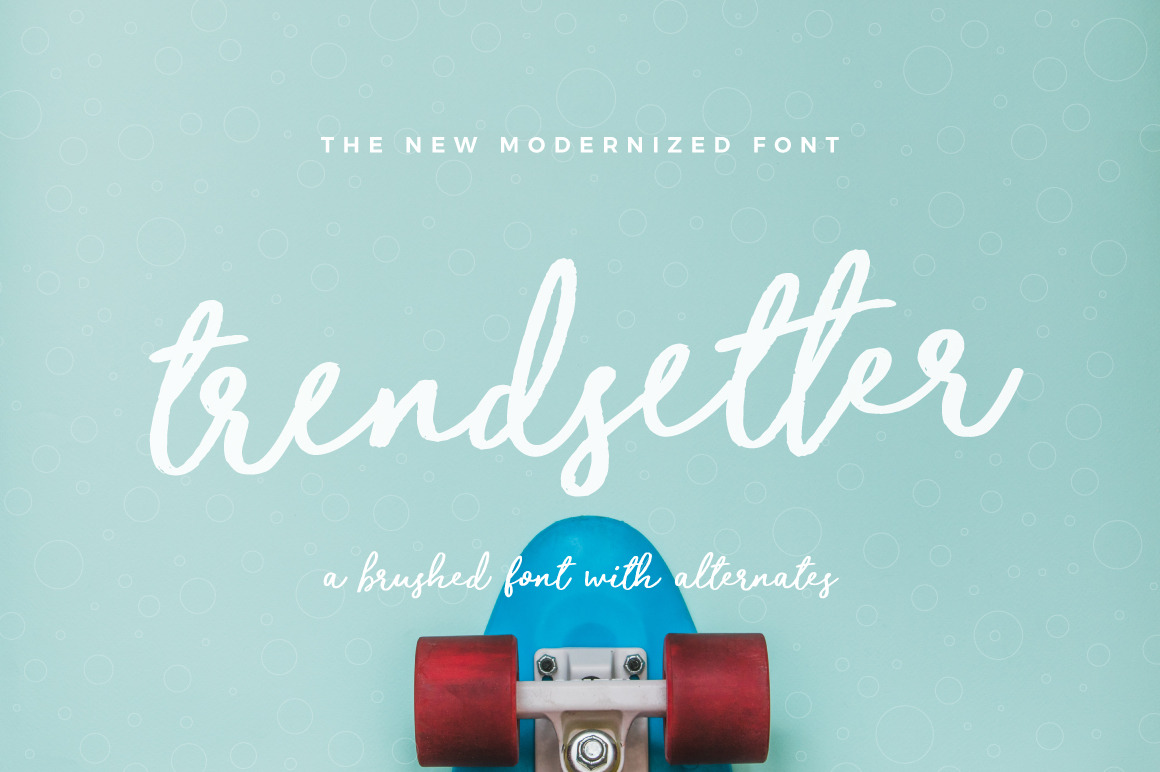
Trendsetter Font
The modernized Trendsetter is out now! It's a well-driving font with a slightly roughened vibe. I took a deep look into modern trendy advertisements and logos while I sketched this font. The end result is smooth all the way, and the alternate characters truly gives it that extra punch to make it more personal in whatever design comes to your table!
1. Trendsetter- Upper and lowercase characters, numerals, punctuations and a wide language support. Extra ligatures for more complex letter-combinations like tt and ll. Including both, OTF and TTF filetypes.